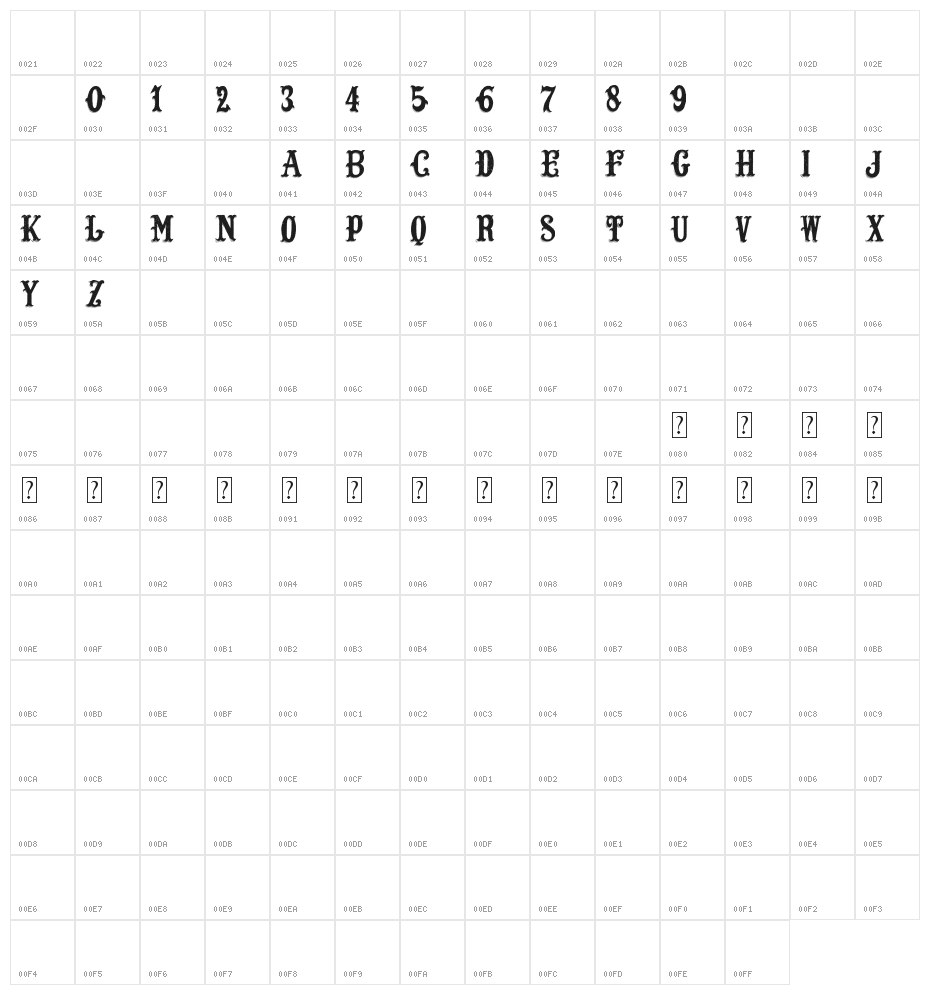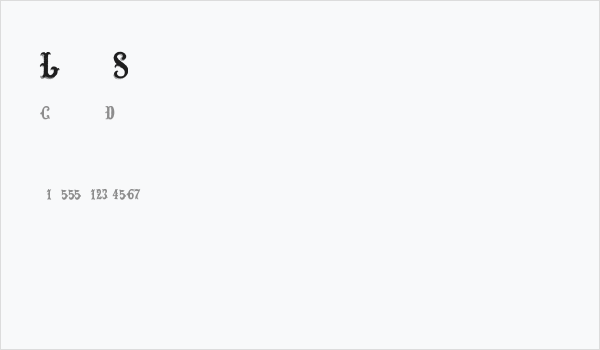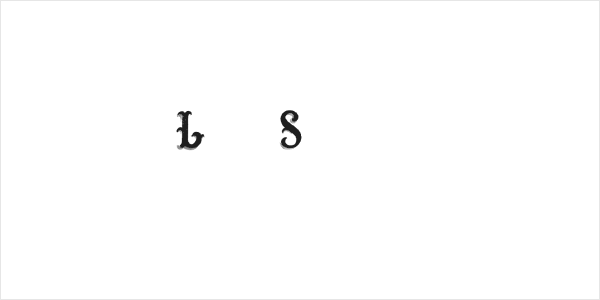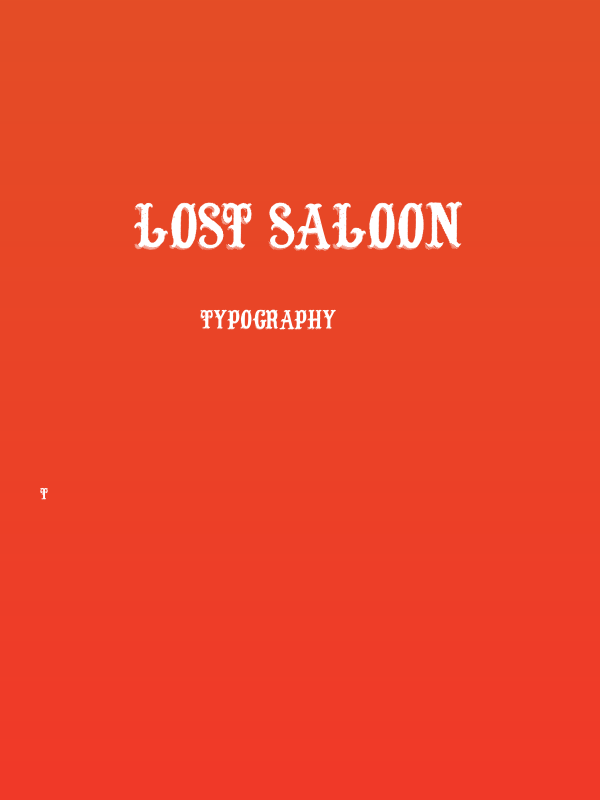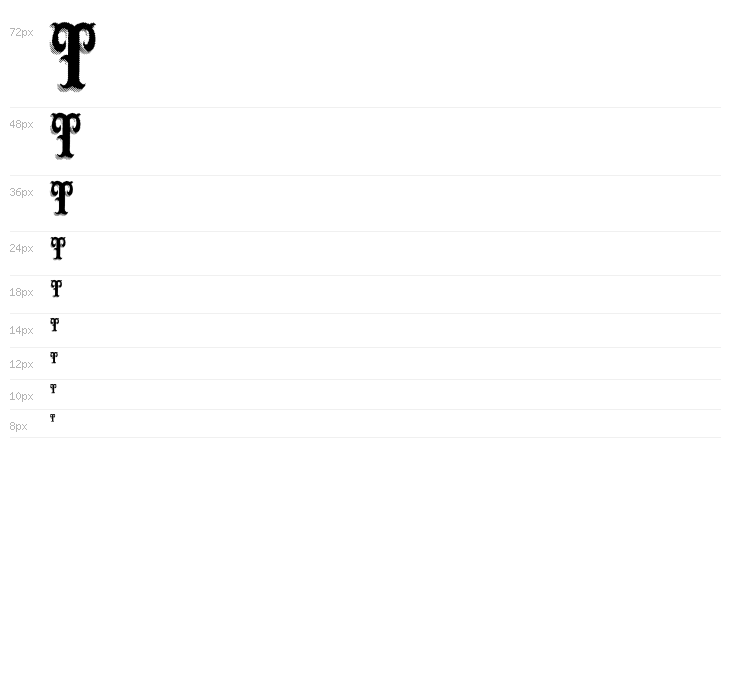
Lost Saloon Font
Lost Saloon Description
This font features a bold, decorative style reminiscent of the Old West, with intricate detailing and a rugged, vintage aesthetic. The uppercase letters are particularly ornate, with flourishes and serifs that evoke a sense of nostalgia and adventure. The numbers maintain this theme, offering a consistent look across all characters. The font's unique design makes it stand out, with a strong presence that commands attention. Its decorative elements are balanced with readability, making it suitable for various creative projects.
| Proposed Projects | Ideal for use in themed posters, event invitations, branding for vintage or rustic businesses, and any project requiring a touch of nostalgia. |